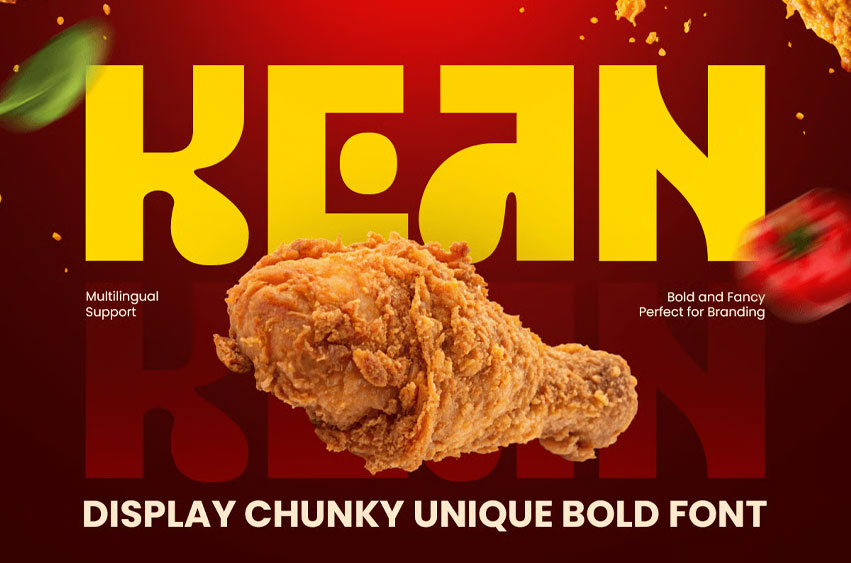
Kean Font is a display chunky unique bold font designed to deliver playful energy, bold personality, and unforgettable visual impact. Featuring thick letterforms, rounded shapes, and a distinctive contemporary style, KEAN is perfect for logos, branding, headlines, posters, packaging, social media graphics, and eye-catching creative projects.
Combining chunky typography with a modern display aesthetic, KEAN creates a fun and memorable visual identity. Its heavy structure ensures outstanding readability while maintaining a unique and expressive character, making it ideal for entertainment brands, creative studios, food businesses, lifestyle products, and vibrant promotional campaigns.
KEAN – Display Chunky Unique Bold Font Features:
- Bold chunky style with unique modern aesthetics
- Thick letterforms for strong visual impact
- Ideal for logos, branding, headlines, posters, and packaging
- Uppercase, lowercase, numerals, and punctuation included
- Excellent readability with playful display character
- Perfect for creative brands, entertainment, lifestyle, and promotional design
Bring bold personality to every design with KEAN – the chunky display font crafted for unforgettable visual branding.